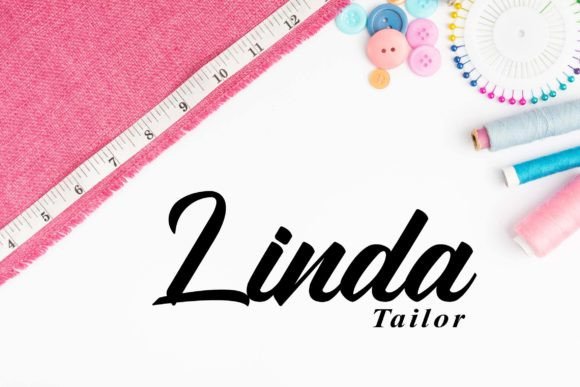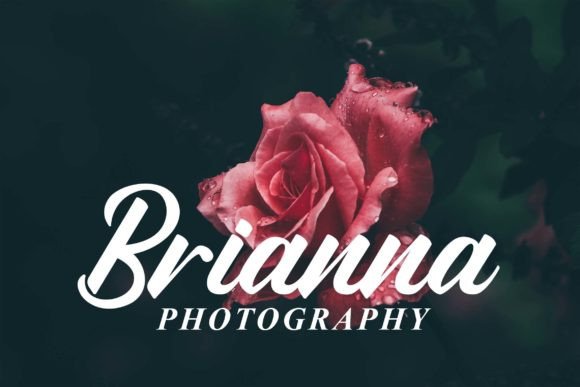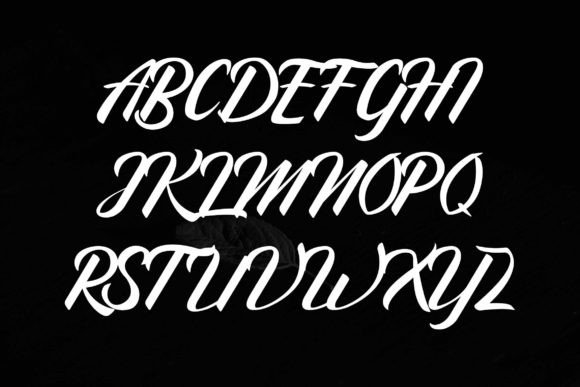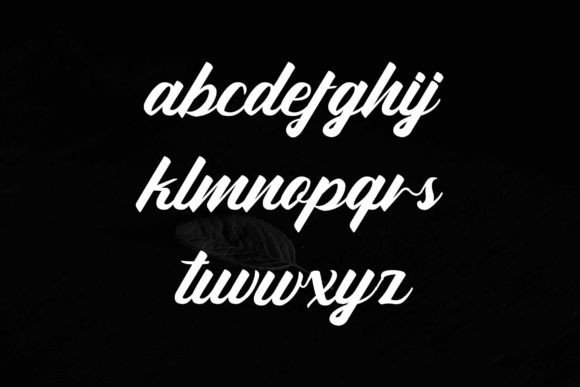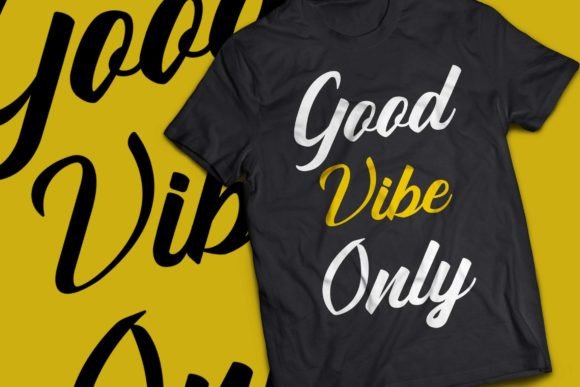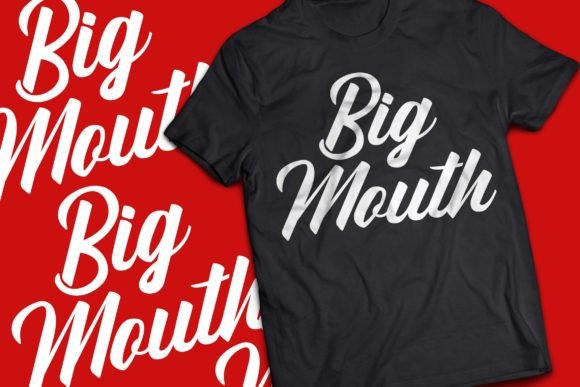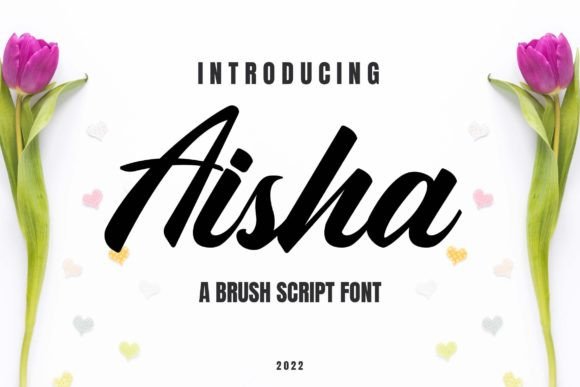
The Quest for the Perfect Font: Discovering Aisha
I’ll never forget the time I was working on a wedding invitation project, and my client asked for a font that would make their special day feel like a fairytale. I scoured the internet, tried out countless fonts, but nothing seemed quite right. That was until I stumbled upon Aisha, a natural brush script font that stole my heart. In this article, I’ll share my journey with Aisha, what I love about her, and how you can make the most of this stunning font in your designs.
An Honest Review of Aisha Font
What I Love About Aisha ✨
• 💕 Aisha has a strikingly authentic feel, making her perfect for designs that require a personal touch.
• 🎨 Her natural brush script style adds a charming, whimsical touch to any design.
• ✅ She’s incredibly versatile and works beautifully on wedding invitations, thank you cards, quotes, greeting cards, logos, business cards, and more.
• 👍 Aisha’s elegant strokes and flowing curves make her a joy to work with.
• ⚠️ Aisha’s authentic feel can sometimes make her a bit tricky to read at smaller font sizes.
• 🤔 Some users might find that her brush script style doesn’t suit very formal or corporate designs.
4. Experiment with OpenType features, such as ligatures and stylistic alternates, to add more personality to your text.
The Story Behind Aisha
Aisha was designed by a talented typographer who wanted to create a font that would capture the essence of natural, handwritten script. Inspired by the flowing curves and elegant strokes of traditional brush calligraphy, Aisha was born. Her creator aimed to craft a font that would be both elegant and approachable, perfect for designs that require a personal touch.
Q: What type of designs is Aisha best suited for?
A: Aisha is perfect for designs that require a charming, personal touch, such as wedding invitations, thank you cards, quotes, greeting cards, logos, business cards, and more.
Q: Does Aisha support OpenType features?
A: Yes, Aisha supports OpenType features, including ligatures, stylistic alternates, and glyphs. Experiment with these features to add more personality to your text.